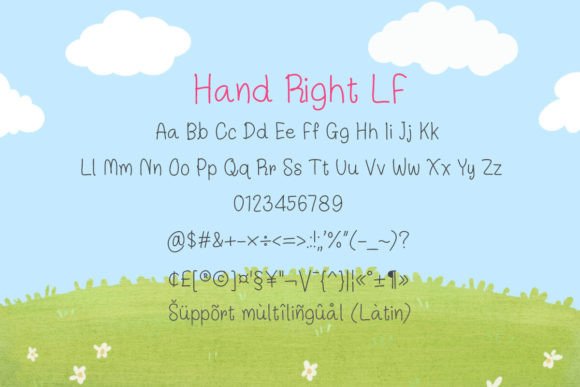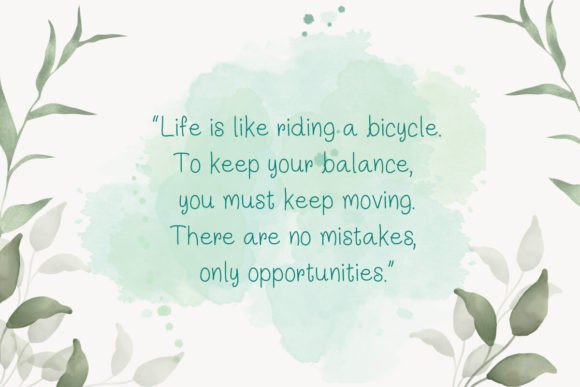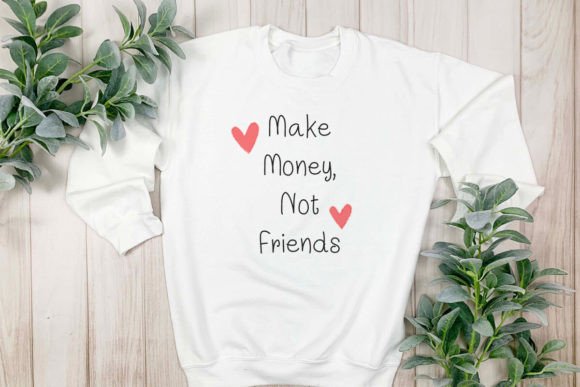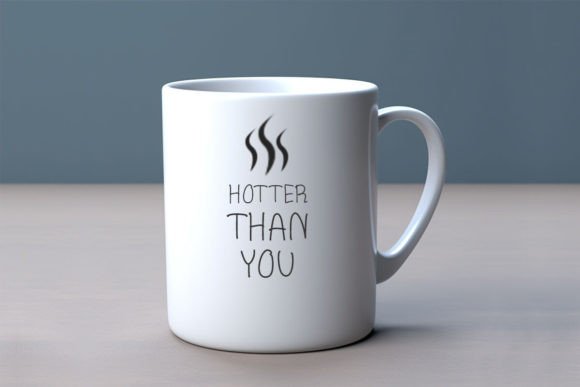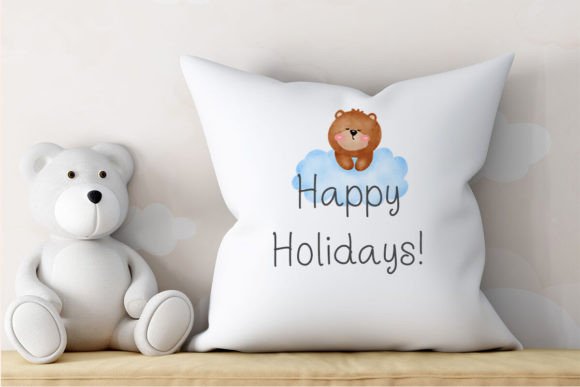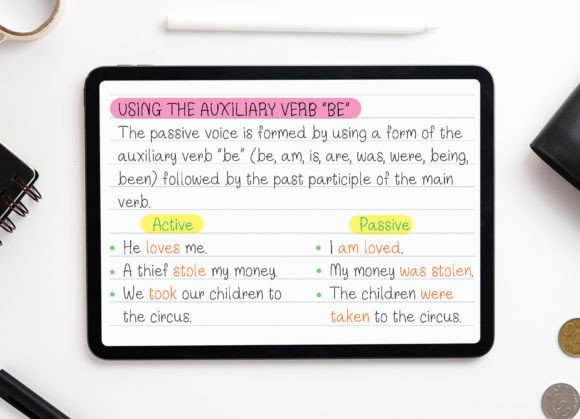
Discover the Charm of Hand Right LF Font: Elevate Your Designs with a Playful Touch
In the world of typography, fonts play a crucial role in conveying the tone and personality of a design. If you’re on the hunt for a typeface that exudes friendliness, playfulness, and a dash of whimsy, look no further than the Hand Right LF font. This delightful sans serif font is perfect for designers and crafters seeking to infuse their projects with a relaxed, approachable vibe.
What Makes Hand Right LF Font So Special?
Hand Right LF is a cute, playful, and friendly sans serif font that has captured the hearts of designers and crafters alike. Its unique charm lies in its ability to add a personal touch to any design, making it an excellent choice for a wide range of projects. Whether you’re working on a fun DIY project, a wedding invitation, or a child’s birthday card, this font is sure to bring a smile to your audience’s faces.
Endless Possibilities with Hand Right LF Font
The versatility of Hand Right LF font is one of its most significant advantages. This font can be used in various design applications, including:
- Fun projects: Add a playful touch to your DIY endeavors, such as scrapbooking, card making, or crafting.
- Diary planners: Create a personalized and engaging planner that reflects your personality.
- Wedding invitations: Set the tone for a joyful and intimate celebration with this charming font.
- Thank you cards: Express your gratitude with a heartfelt, handwritten feel.
- Quotes and greeting cards: Inspire and uplift your loved ones with beautifully designed cards.
- Christmas and holiday designs: Spread cheer and festivity with Hand Right LF’s playful spirit.
- Posters and blogs: Add a touch of whimsy to your advertising materials or online content.
- Clothing and accessories: Create eye-catching designs for T-shirts, bags, and other wearable items.
- Child-related designs: Develop engaging and kid-friendly materials, such as children’s books, stickers, or activity sheets.
- Logos and branding: Establish a friendly and approachable brand identity with this delightful font.
Why Choose Hand Right LF Font?
With so many fonts available, why should you choose Hand Right LF for your designs? Here are a few compelling reasons:
- Unique personality: Hand Right LF font has a distinct, playful character that sets it apart from more traditional typefaces.
- Easy to read: The sans serif design ensures that your text remains clear and legible, even at smaller font sizes.
- Versatile: This font can be used in a wide range of design applications, from digital projects to print materials.
- Relaxed touch: Hand Right LF font is perfect for designs that require a friendly, approachable feel.
Tips for Using Hand Right LF Font Effectively
To get the most out of Hand Right LF font, consider the following tips:
- Pair with complementary fonts: Combine Hand Right LF with other fonts to create visual interest and hierarchy.
- Experiment with colors: Try out different color schemes to find the perfect match for your design.
- Play with sizes: Use varying font sizes to create emphasis and add visual appeal.
- Keep it simple: Don’t be afraid to use white space to let your design breathe and maintain focus.
In conclusion, Hand Right LF font is a delightful addition to any designer’s toolkit. Its playful, friendly, and approachable nature makes it perfect for a wide range of projects. Whether you’re a seasoned designer or a crafty DIY enthusiast, this font is sure to inspire your creativity and elevate your designs to the next level.